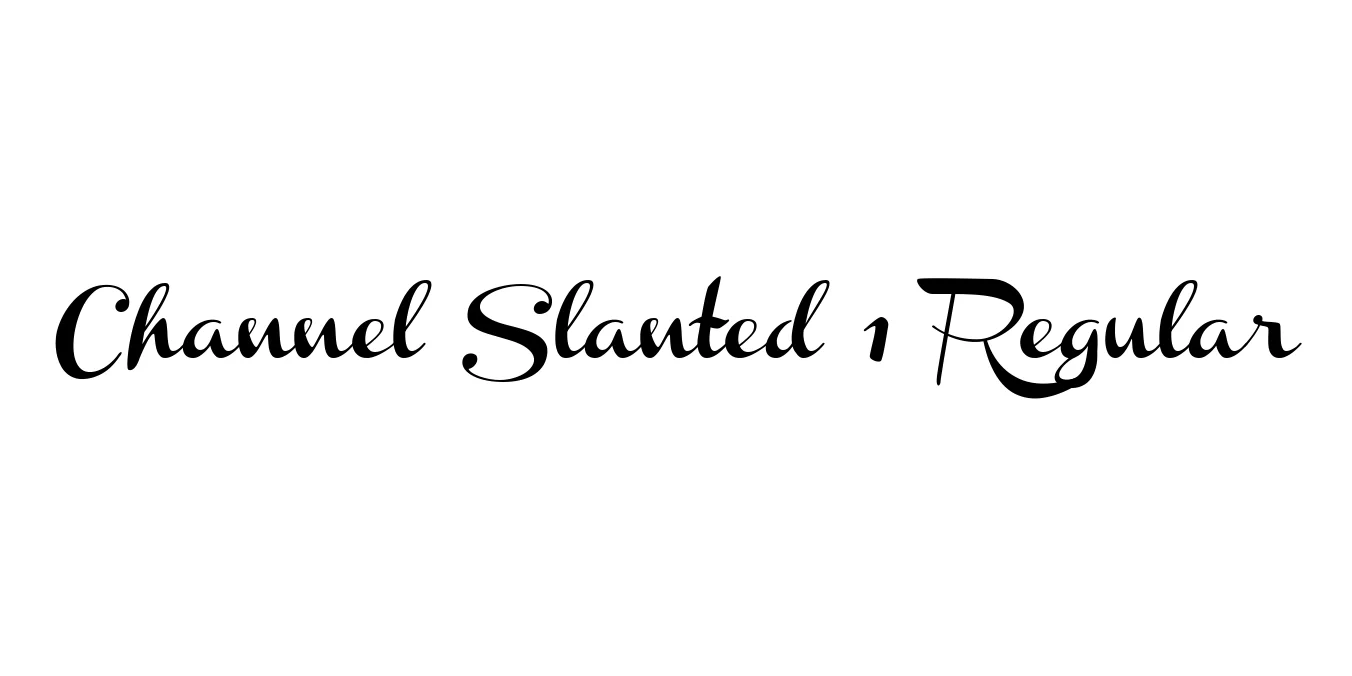
Channel Slanted 1 Regular
Designed by Måns Grebäck
Channel Slanted 1 Regular is a sophisticated and dynamic script font crafted by the prolific type designer Måns Grebäck. Characterized by its fluid, brush-like strokes and a pronounced italicized slant, this typeface exudes a sense of speed, elegance, and professional craftsmanship. It belongs to the popular Channel family, which is celebrated for its ability to mimic high-quality hand-lettering with a polished, modern finish.
This typeface is exceptionally versatile, making it a favorite for branding projects, luxury packaging, and editorial layouts. Its rhythmic connectivity and sharp terminals provide a signature-style aesthetic that works beautifully in both digital and print mediums. Whether used for a high-end fashion logo or a personalized invitation, Channel Slanted 1 Regular adds a touch of class and individuality to any creative endeavor.
Channel Slanted 1 Regular Best Uses
Excellent for creating memorable and elegant brand identities.
Perfect for digital watermarks and personalized signatures.
Highly effective for catchy headlines in advertising campaigns.
Adds a sophisticated touch to business cards and invitations.